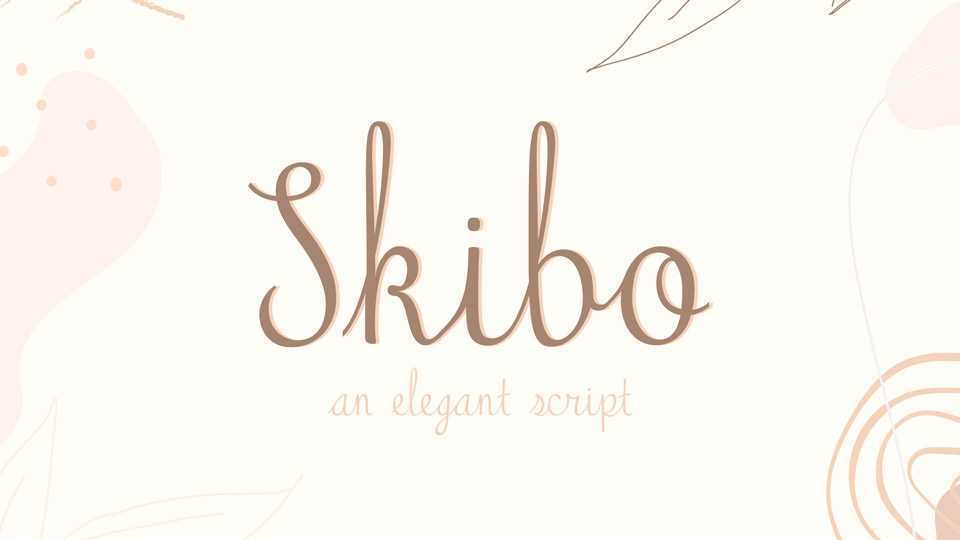
Download Skibo font, a beautiful handwritten script with a touch of elegance. Skibo font is perfect for craft projects, greeting cards, invitations, letters, quotes and more.
Designer: Jason Reed